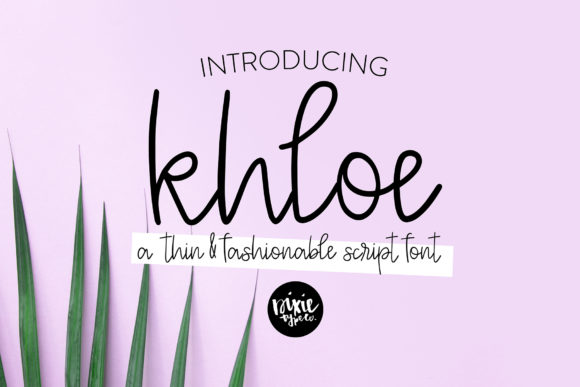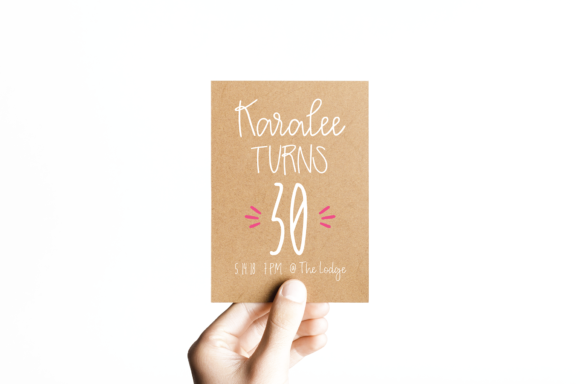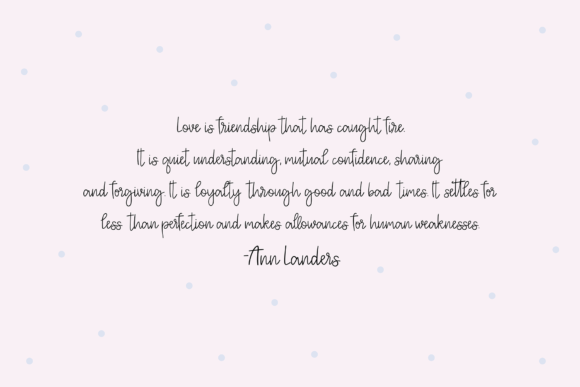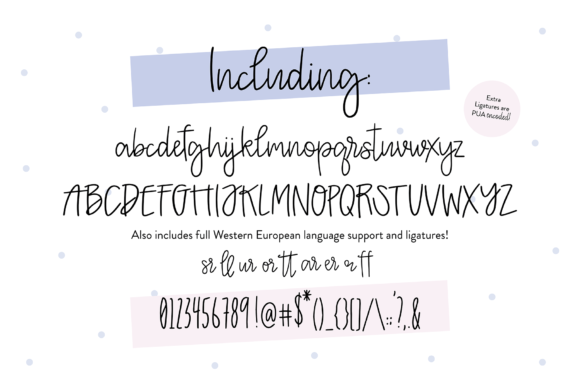
Khloe Font
About Khloe Font
Khloe is a fancy and modern handwritten font. Get inspired by it’s amazing feel and use it to brighten up all your summer crafting projects!